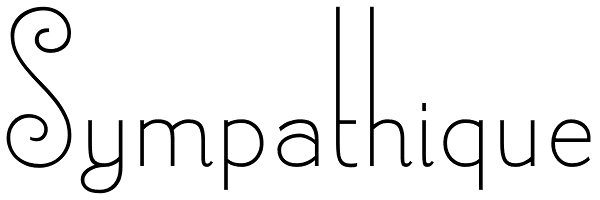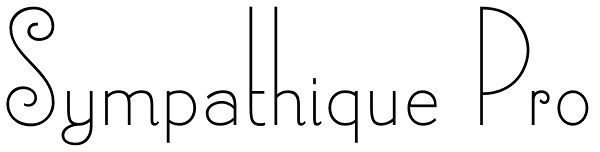
Sympathique
One can never be too tall or too thin, the old adage goes. Sympathique is quite fashionably both. Rooted in two separate film face ideas called Hairstreak (English) and Mossman (American), Sympathique takes art deco to its ultimate and inevitable...